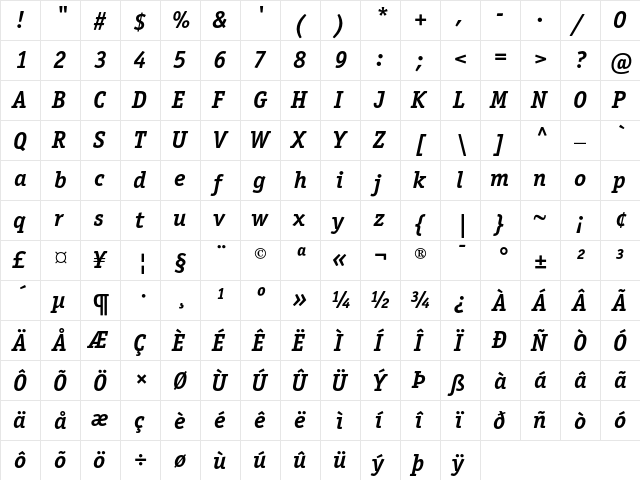
ITC Officina Serif Bold Italic
Design Context for ITC Officina Serif Typeface
ITC Officina Serif brings classic typographic sensibility to the table — its serifs and measured letterforms reflect centuries of print heritage. The dynamic lean of this cut emphasises speed and emphasis in any layout. Its bold stroke weight gives it real presence on the page.
Pro Tip: Set ITC Officina Serif with slightly loose tracking in headlines to let each letterform's detail read clearly at display sizes.